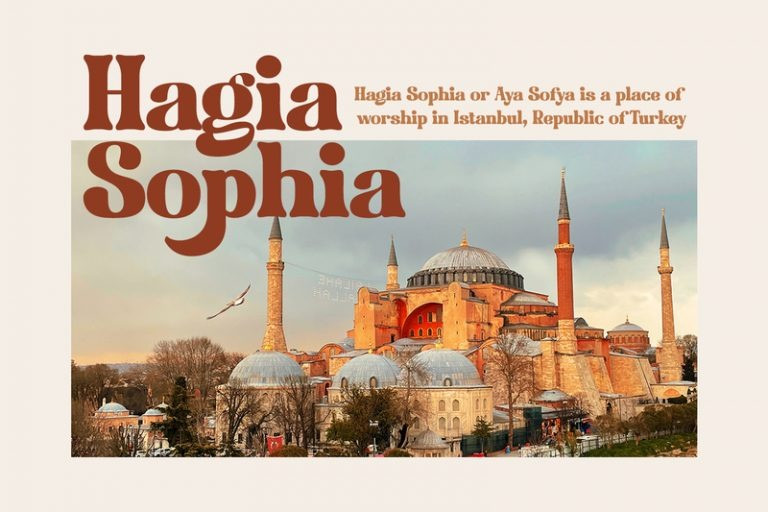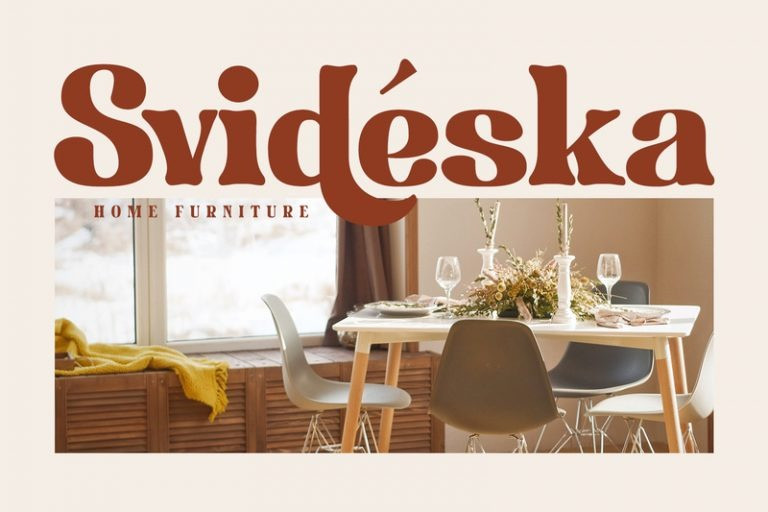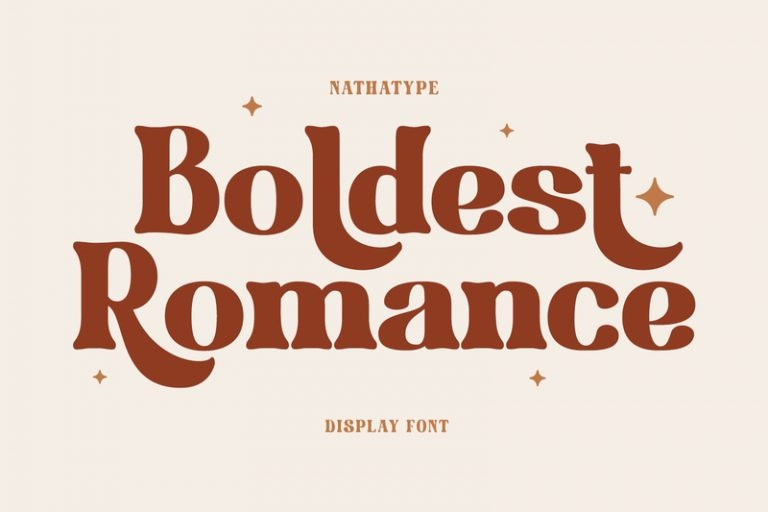
Boldest Romance Font
Boldest Romance Display Font is a thickly designed weight display font to be legible and beautiful at the same time. This is perfect to apply for serious, formal contents as it gives a strong impression. Furthermore, this legible font has regular structures easing readers to recognize every letter correctly. You can also enjoy interesting features available here.